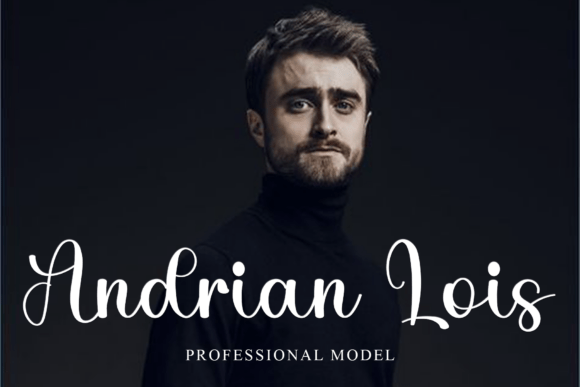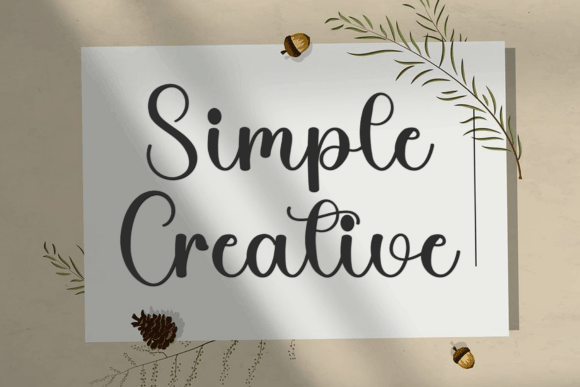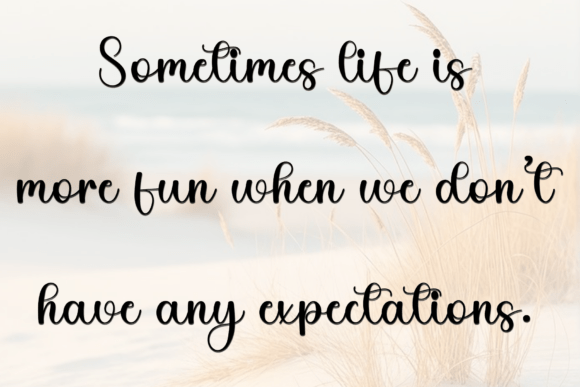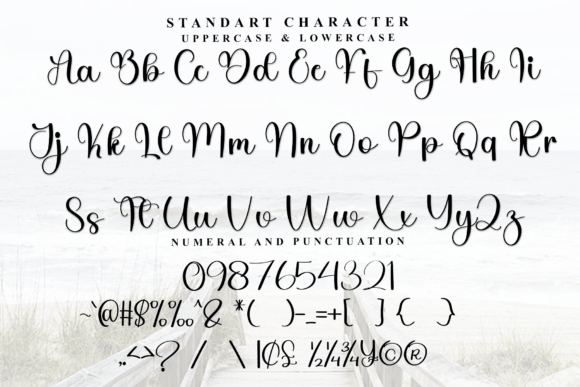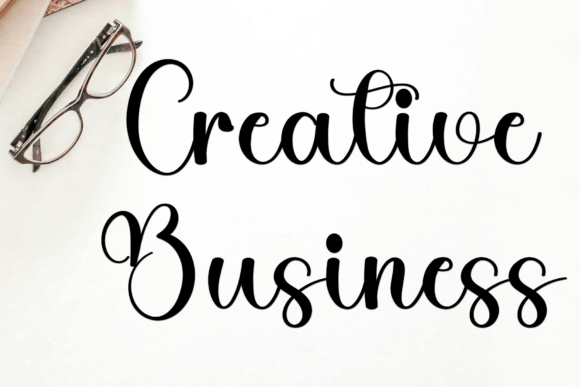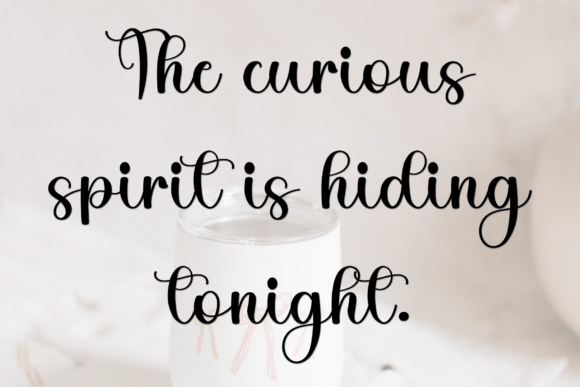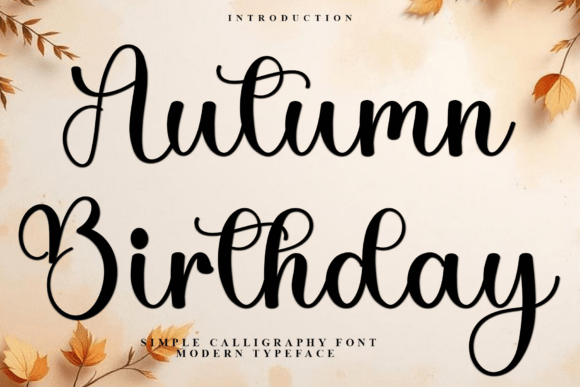
The Magic of Autumn Birthday Font: A Designer’s Delight
As a designer, I’ve had my fair share of late nights and early mornings spent scrolling through font libraries, searching for that perfect typeface to bring a project to life. But one font that has left a lasting impression on me is the Autumn Birthday font. Its whimsical charm and festive vibe instantly transport me to a world of cozy sweaters, warm apple cider, and crisp fall leaves. In this article, I’ll share my experience with Autumn Birthday, its features, and how to make the most of it in your designs.
A Moment of Frustration, A Lifetime of Inspiration
I recall working on a project for a client who wanted a custom greeting card design for their friend’s birthday in October. The catch? It had to evoke the feeling of a classic, autumnal celebration. I scoured font libraries, but nothing seemed quite right – until I stumbled upon Autumn Birthday. Its decorative elements and playful ligatures instantly won me over. I knew I had found the perfect fit for my project.
So, what makes Autumn Birthday so special? Here are a few things I love about this font:
- ✨ Festive and merry vibe that’s perfect for holiday-themed projects
- ✅ Whimsical flair that adds a touch of enchantment to your designs
- 🎉 Decorative elements and ligatures that bring a sense of nostalgia
- 💻 PUA encoded for easy access to glyphs and ligatures
Of course, no font is perfect, and Autumn Birthday has a few minor quirks:
- 🤔 Some users may find the font a bit too ornate for certain projects
- ⚠️ Limited use outside of holiday-themed designs (but that’s what makes it so special, right?)
The Story Behind Autumn Birthday
Autumn Birthday was designed with the intention of capturing the warmth and magic of the fall season. Its creator drew inspiration from vintage holiday cards, autumn leaves, and cozy sweaters to craft a font that’s both nostalgic and playful. The result is a typeface that instantly evokes a sense of comfort and celebration.
With its whimsical charm and festive vibe, Autumn Birthday is sure to become a favorite in your font library. Whether you’re designing greeting cards, gift tags, or holiday-themed projects, this enchanting typeface will bring a touch of magic to your words.